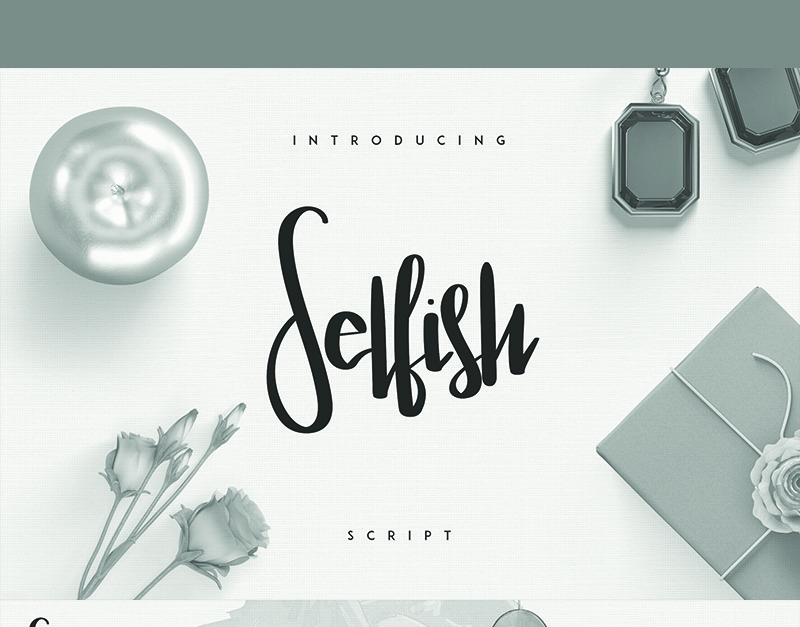
Selfish Font
Introducing: Selfish Script ! A handwritten font with a personal charm. With dry clean lines, Selfish is perfect for branding projects, home-ware designs, product packaging - or simply as a stylish text overlay to any background image.